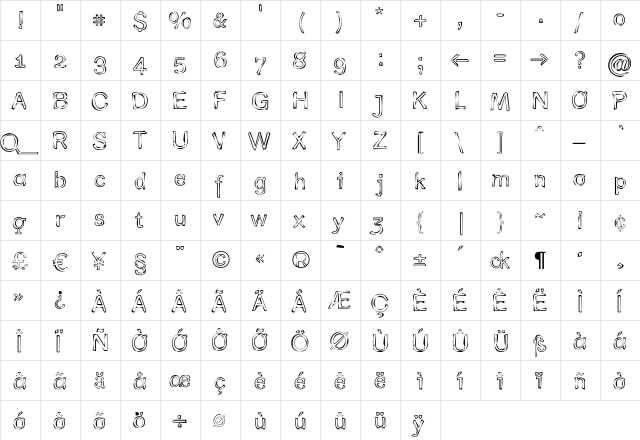
F2FBurnoutChaos LT Std Regular
| Designer | Alexander Branczyk |
Design Context for F2FBurnoutChaos LT Std Typeface
F2FBurnoutChaos LT Std is a composed and adaptable typeface that performs quietly and consistently across a wide range of design contexts. The delicate stroke weight brings airiness and refinement to layouts.